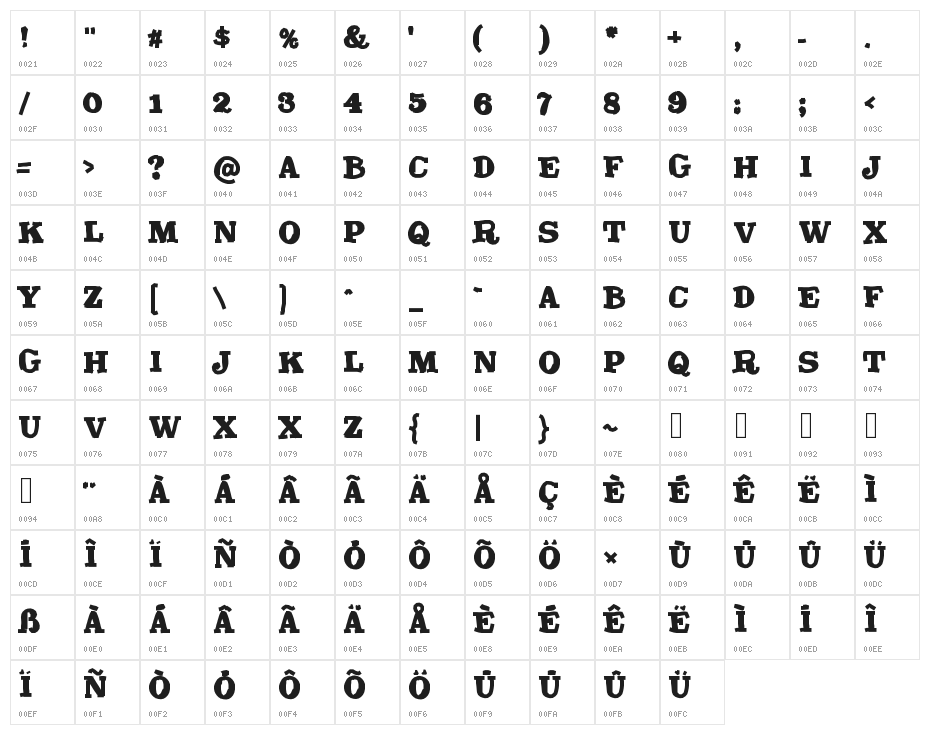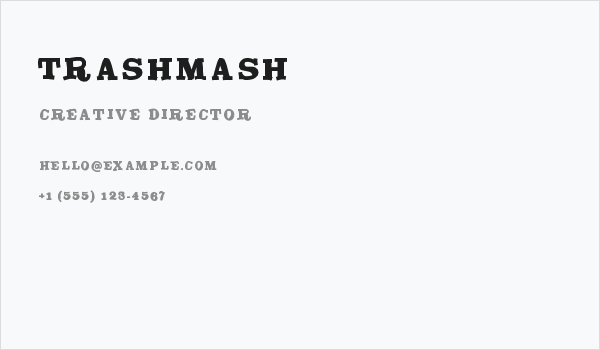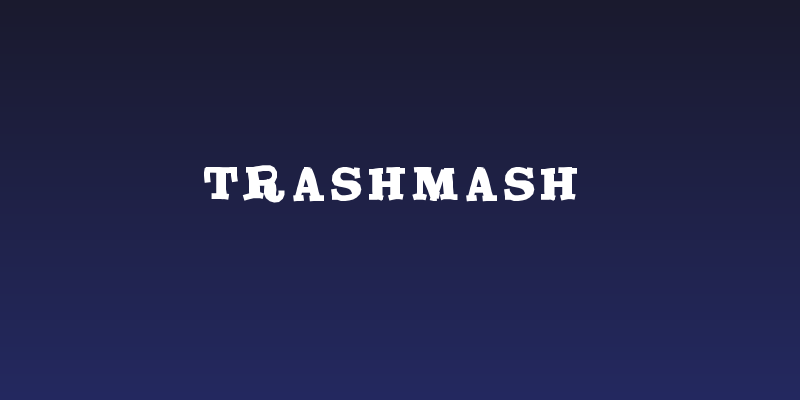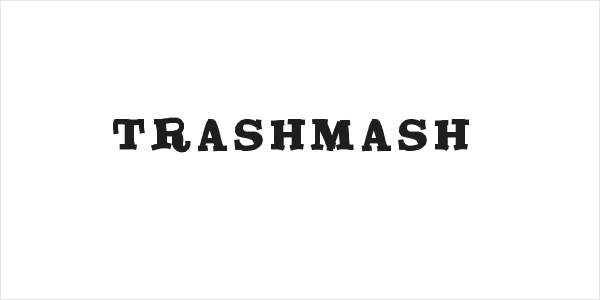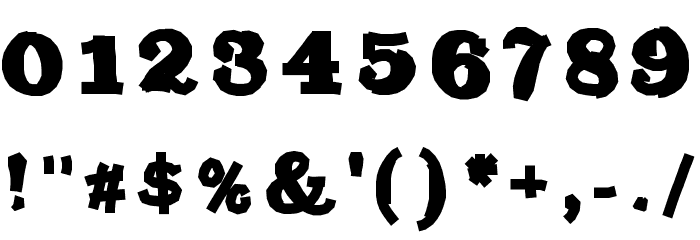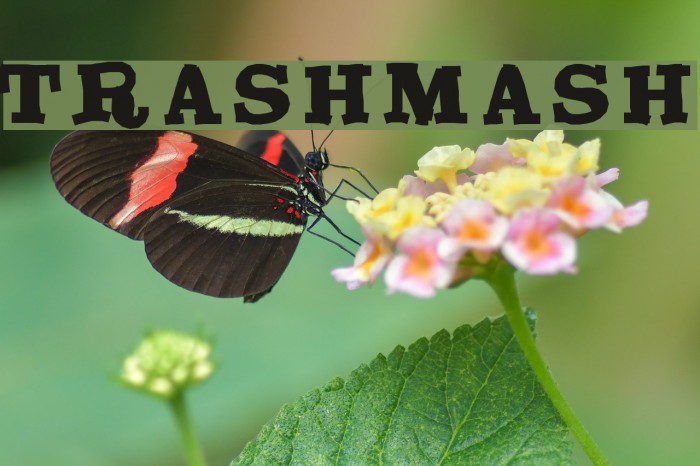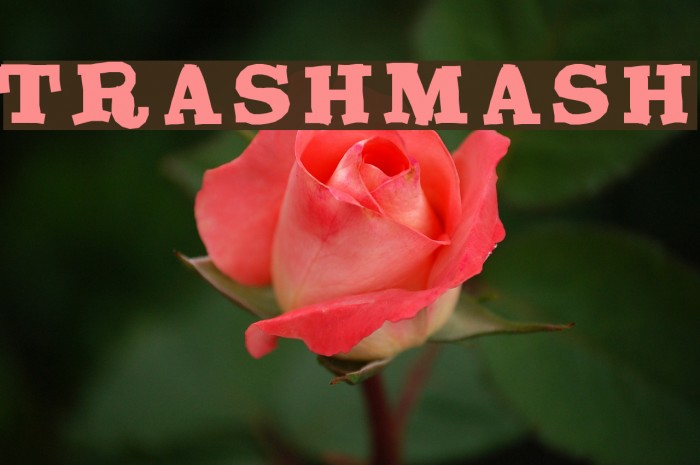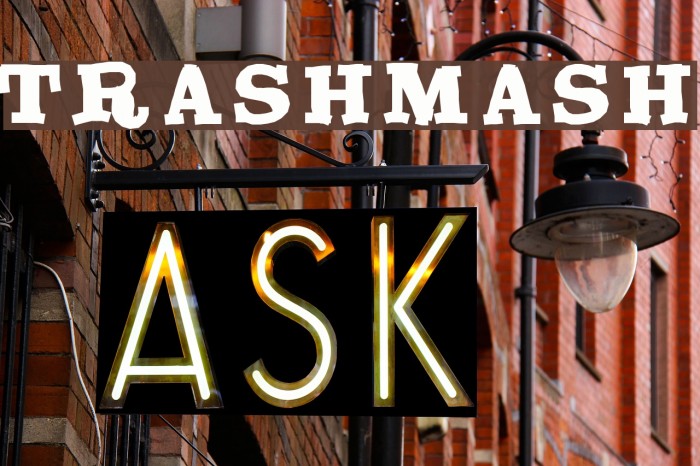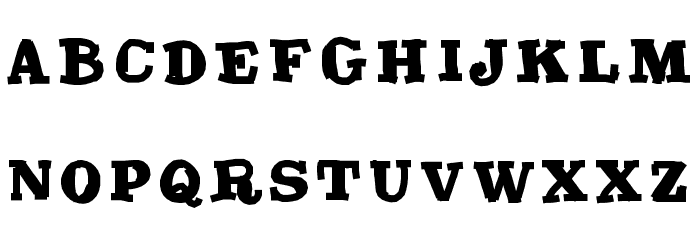
TrashMash Font
TrashMash Description
This font features a bold and rugged design, characterized by its distressed and uneven edges that give it a vintage, worn-out appearance. The uppercase letters are prominent and impactful, making a strong visual statement. The numbers and special characters maintain the same boldness, ensuring consistency across all elements. The font's unique style is reminiscent of old western or industrial themes, making it ideal for projects that require a touch of nostalgia or a gritty, authentic feel.
| Use Case | Logos, Posters, Branding |
| Proposed Projects | Perfect for vintage-themed posters, logos, branding for rustic or industrial businesses, and any design requiring a bold, nostalgic touch. |